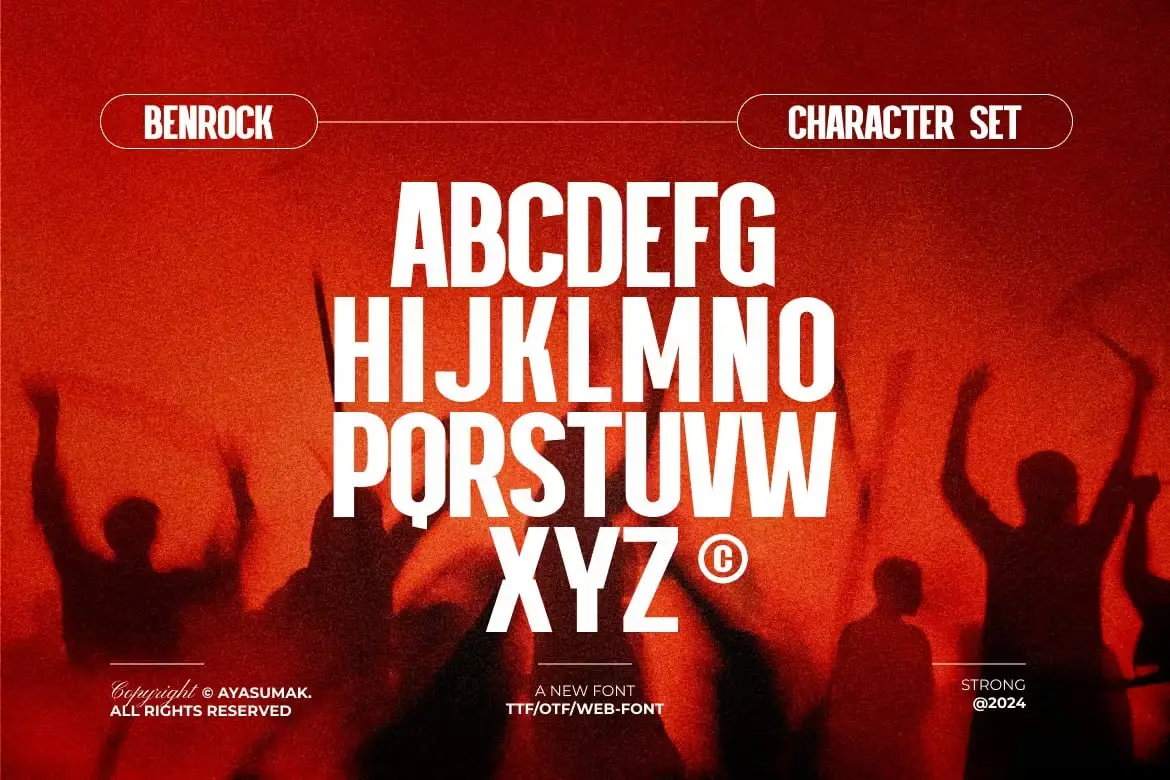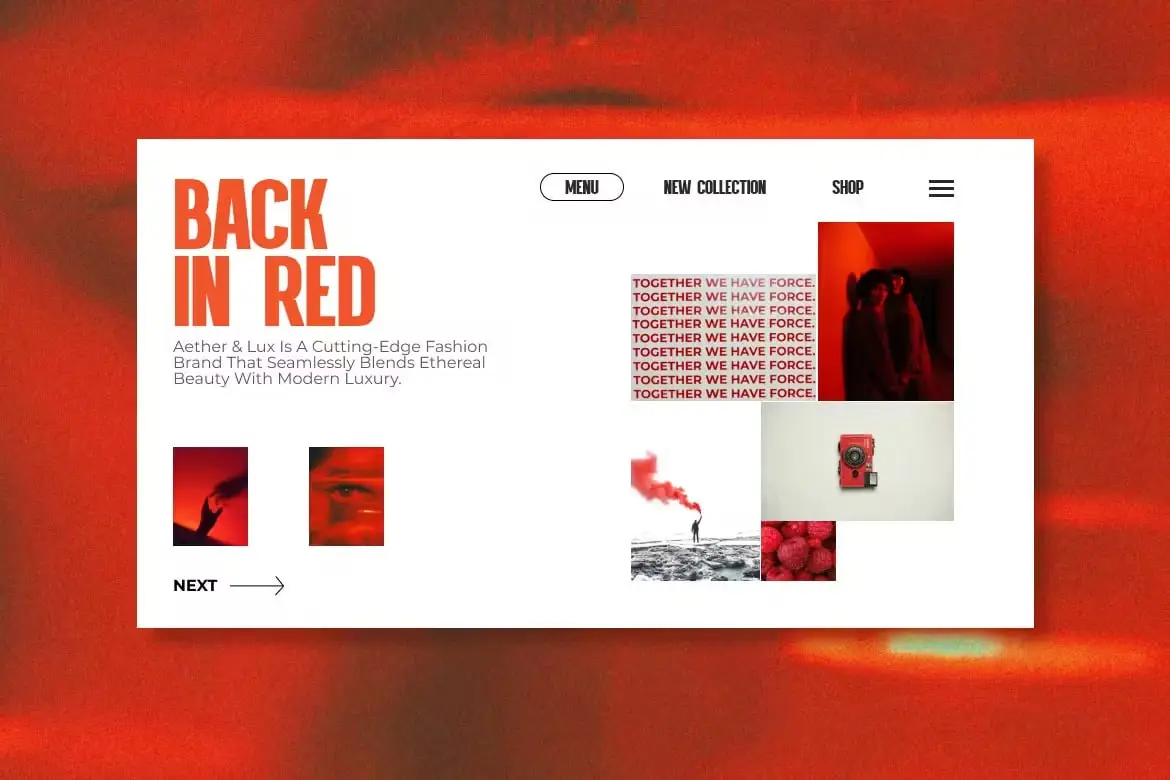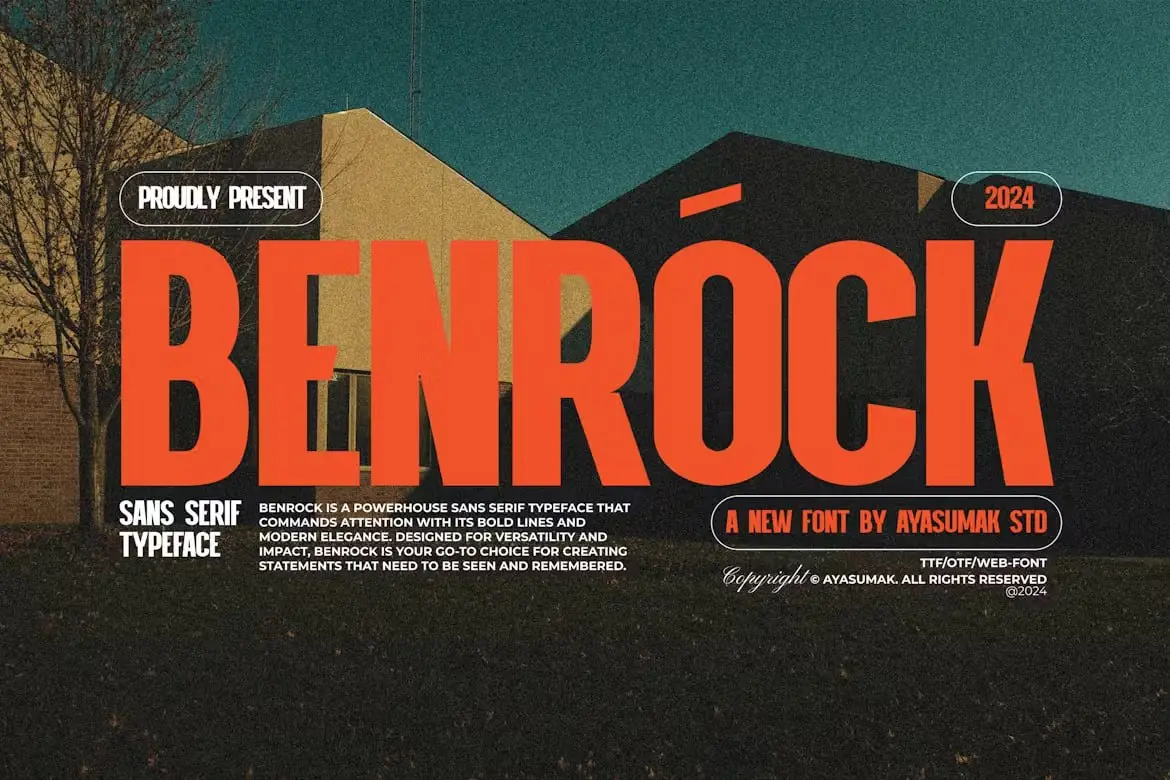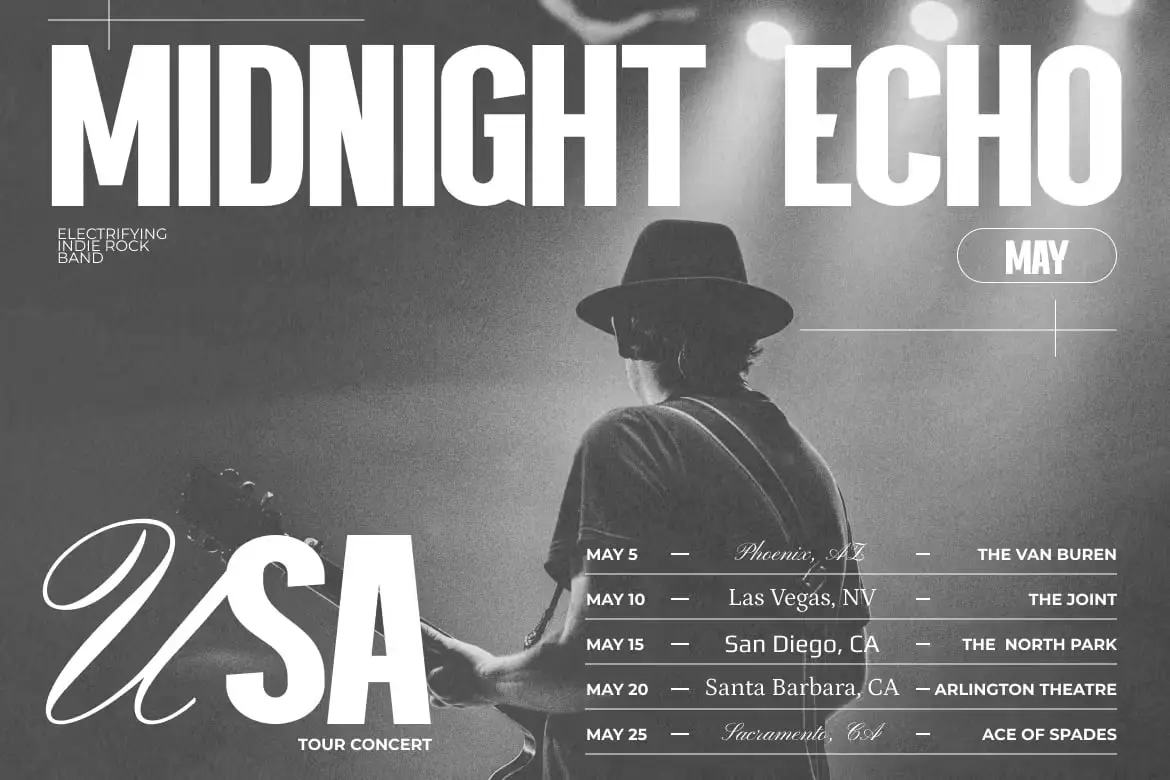
Benrock-Modern Professional Sans Font
Introducing the Benrock Modern Professional Sans Font, a versatile typeface designed for a wide range of applications. Its clean lines and contemporary aesthetic make it an ideal choice for branding, logos, web design, print materials, and user interfaces.
• Modern sans-serif style
• Multiple weights for flexibility
• Clear readability at various sizes
• Stylish and professional appearance
• Use for clean and modern branding projects
• Ideal for digital and print applications
• Perfect for headlines, body text, and UI elements